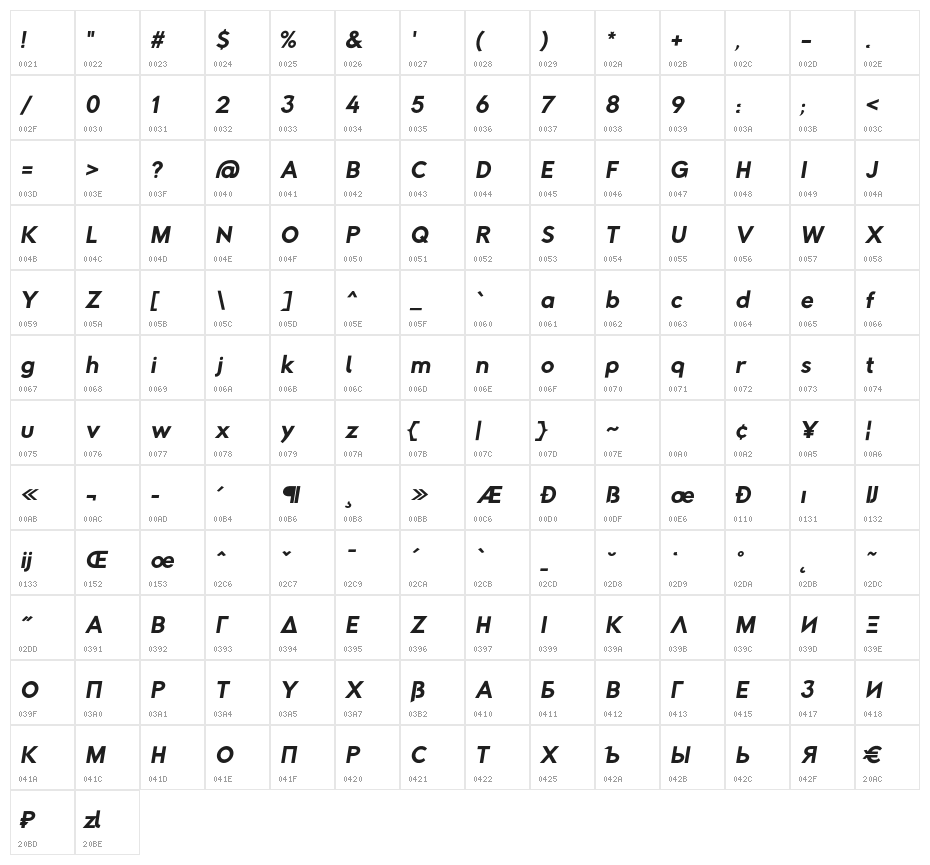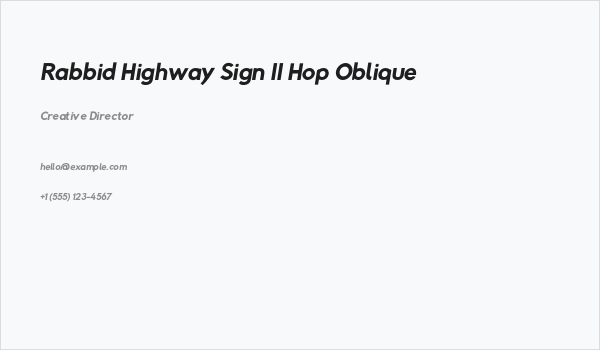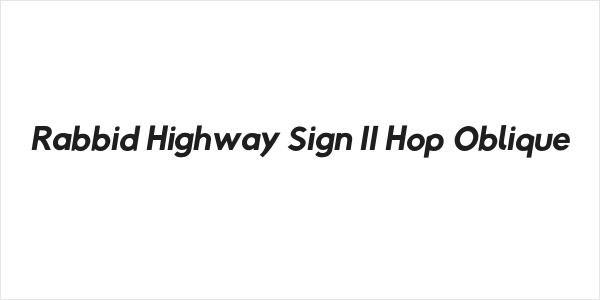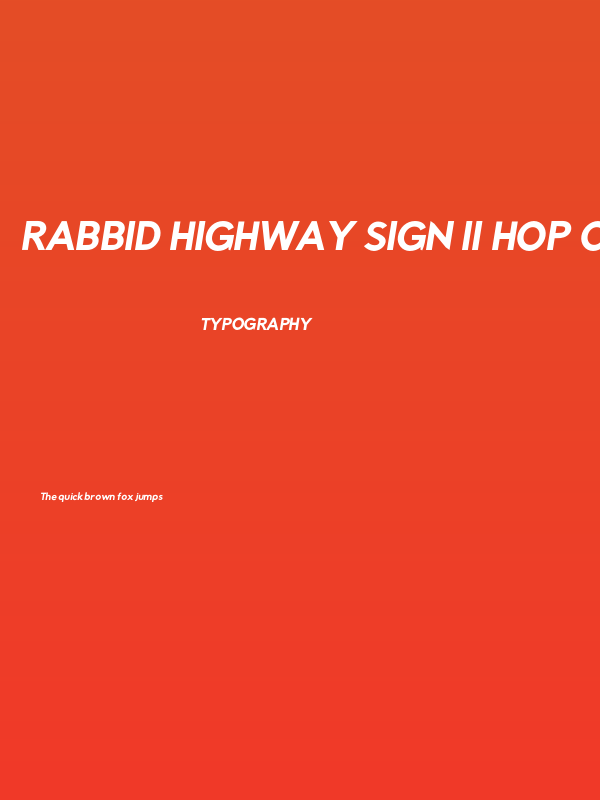
Rabbid Highway Sign II Hop Oblique Font
Rabbid Highway Sign II Hop Oblique Description
This font features a bold and dynamic oblique style, characterized by its slanted and energetic appearance. The uppercase and lowercase letters maintain a consistent slant, giving a sense of motion and urgency. The numerals and special characters follow the same oblique design, ensuring uniformity across all glyphs. The strokes are thick, providing a strong visual impact, while the spacing between characters is tight, enhancing the compact and cohesive look. This font is suitable for projects that require a modern and assertive aesthetic.
| Proposed Projects | Ideal for headlines, advertising, posters, and branding materials that need a bold and modern look. |